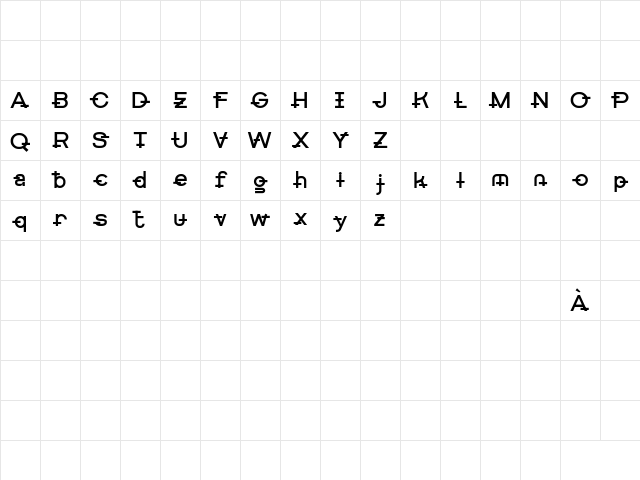
Getboreg Minus Tech has a distinctly futuristic character, with geometric precision and clean angles that feel at home in technology, gaming, and sci-fi contexts.